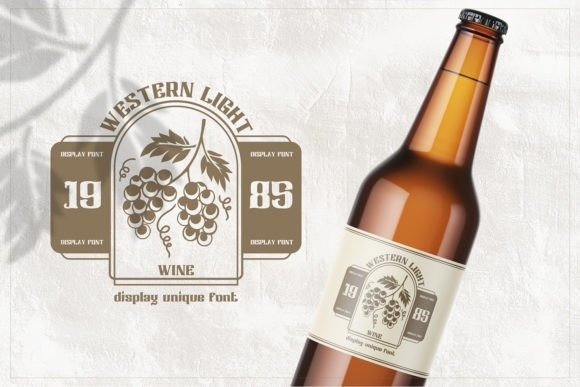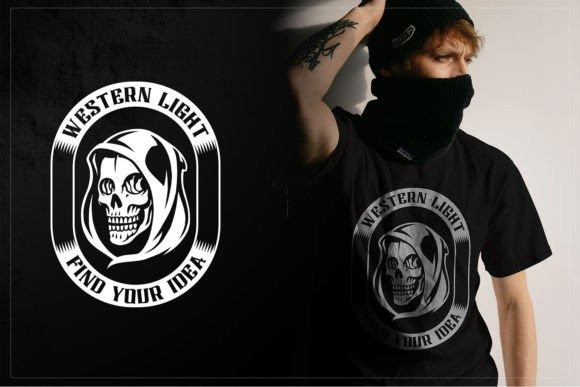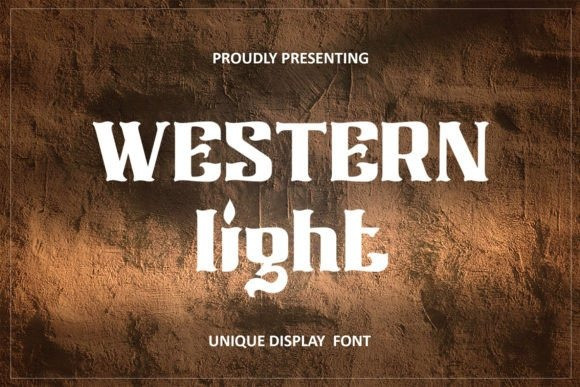
Western Light Font
Western Light Font is a gorgeous display font that impresses through its natural and elegant style. Add it to your most creative ideas, and notice how it transforms them into authentic pieces of art!